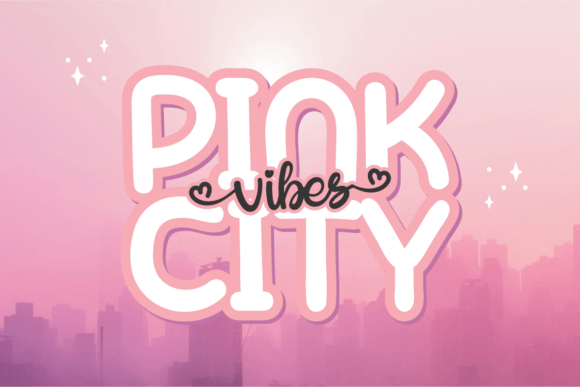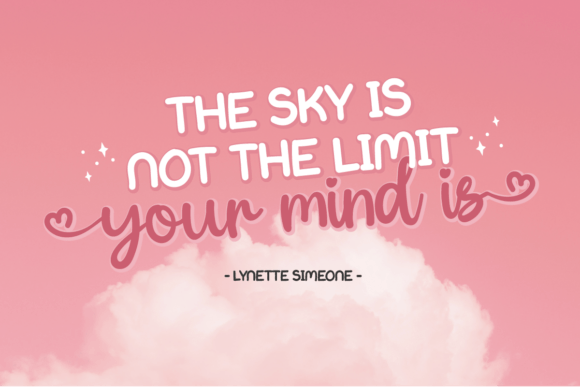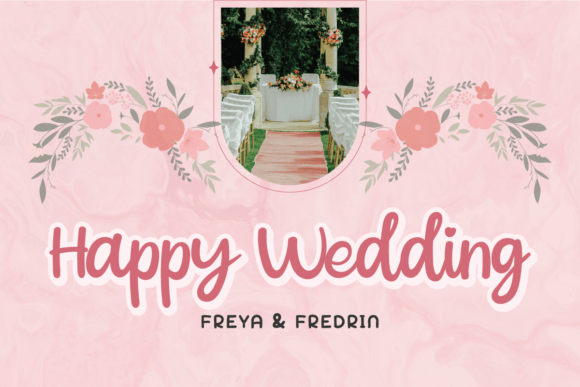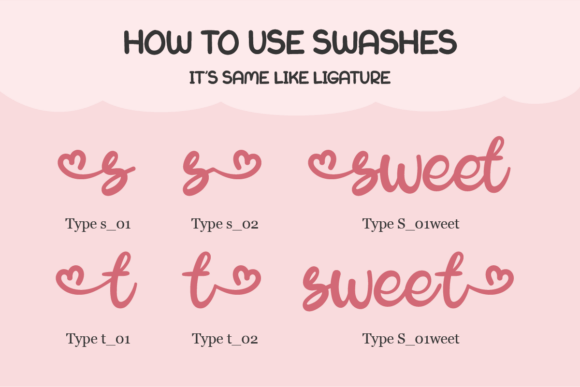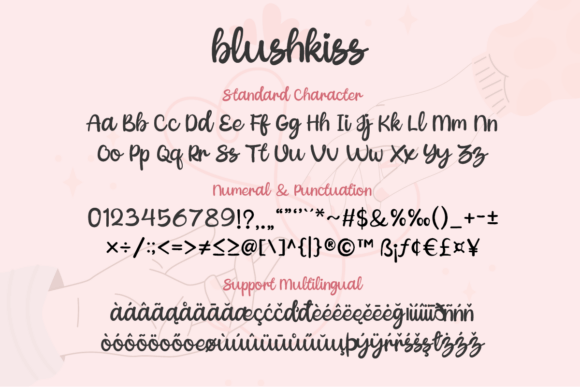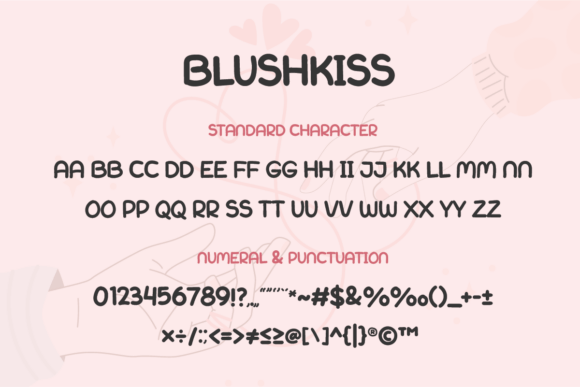
Unleashing Your Creativity with Blush Kiss Font
Have you ever sat down at your desk, surrounded by blank papers, empty canvases, and a spark of inspiration, only to be overwhelmed by the endless possibilities in front of you? This is where many designers find themselves – craving a spark that sets their imagination ablaze. For those seeking a romantic and playful typography that brings their creative vision to life, the Blush Kiss Font Duo is the perfect companion.
This lovely font duo combines a bold, playful sans-serif with an elegant, handwritten script adorned with charming heart swashes, making it ideal for creating eye-catching designs with a touch of romance. The Blush Kiss Font Duo is perfect for wedding invitations, branding, social media posts, and Valentine’s Day projects. Its versatility and creativity make it a valuable asset for designers, ensuring smooth printing and digital display with popular design software.
Key Features of Blush Kiss Font
- Font Family: Blush Kiss is a sans-serif font family that offers a unique blend of modern and elegant design elements.
- Unique Characteristics: Blush Kiss features a distinctive rounded design, subtle curves, and a soft, romantic feel, making it perfect for feminine and elegant designs.
Blush Kiss Font Review
First of all, let me say that I was initially drawn to the Blush Kiss font because of its whimsical and playful vibe ✨. The combination of cursive and script elements creates a beautiful, hand-written feel that’s perfect for feminine and creative projects. I also appreciate the variety of weights and styles available, making it easy to customize the font to fit your needs.
Some of the key strengths of the Blush Kiss font include:
- High-quality rendering, even at larger sizes ✨
- Excellent legibility, making it easy to read and understand
- Perfect for design projects that require a touch of elegance and sophistication ✨
- Support for multiple languages, making it a great choice for international projects
However, I do have a few reservations about the Blush Kiss font ⚠️. The font can be a bit overused, and I’ve seen it used in many different designs without much variation. Additionally, the font’s cursive elements can be a bit difficult to read at smaller sizes, making it less suitable for body text or other applications where readability is crucial.
Overall, I think the Blush Kiss font is a solid choice for design projects that require a touch of whimsy and playfulness ✨. While it may have some limitations, its strengths far outweigh its weaknesses, making it a great addition to any designer’s toolkit.
For best results, pair Blush Kiss Font with a clean and minimalist design aesthetic.
For a professional look, use Blush Kiss Font in conjunction with bold lines and subtle textures.
For a polished look, use Blush Kiss Font in conjunction with clear headings and concise bullet points.
Blush Kiss Font is perfect for:
Branding and marketing materials
Personalized gifts and cards
Any design project that requires a touch of elegance and sophistication
Alternatives to Blush Kiss Font
Blush Kiss Font is a beautiful script font with a romantic touch. If you’re looking for alternative fonts with similar characteristics, consider the following options:
Great Vibes Font is a modern script font with a flowing, handwritten feel. It’s perfect for creating invitations, wedding stationery, and other romantic designs. Compared to Blush Kiss Font, Great Vibes Font has a more casual, laid-back vibe and is suitable for a wider range of designs.
Carolyna Pro Font is a luxurious script font with a sophisticated, elegant feel. It’s ideal for creating high-end designs, such as luxury branding, packaging, and invitations. Compared to Blush Kiss Font, Carolyna Pro Font has a more refined, polished look and is better suited for formal designs.
Alex Brush Font is a beautiful, handwritten script font with a personal touch. It’s perfect for creating designs that require a sense of warmth and personality, such as blog headers, social media graphics, and personal branding. Compared to Blush Kiss Font, Alex Brush Font has a more rustic, organic feel and is suitable for a wider range of designs.